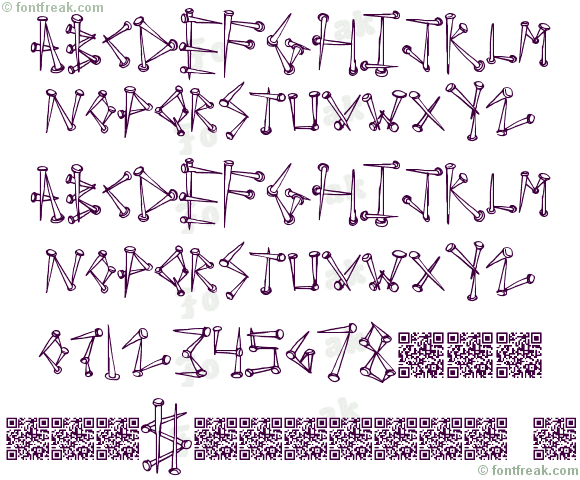
SuperTack
SuperTack by Xerographer Fonts is a distinctive display font that embodies a playful and creative spirit. Released in 2013 as freeware, it showcases a unique design that features a series of nail-like elements, giving it an industrial and artistic flair. The font's letterforms exhibit a variable stroke weight, combining thick and thin lines that create visual interest and a sense of movement. The spacing is intentionally irregular, enhancing its quirky character and making it an eye-catching choice for a range of applications.
SuperTack excels in various creative contexts, making it ideal for use in wedding invitations that seek a modern yet whimsical touch. Its unique style also lends itself well to movie posters, where it can capture the attention of potential viewers with its unconventional design. Additionally, restaurant menus can benefit from SuperTack's charm, enticing diners with an inviting and contemporary aesthetic. Content creators looking to make their social media graphics pop will find this font an engaging choice, perfect for headlines or promotional materials. Graphic designers and small business owners will appreciate the versatility and originality that SuperTack brings to their projects.
What truly sets SuperTack apart is its ability to infuse a sense of fun and creativity into any design. Unlike traditional fonts, its unconventional structure and playful elements encourage a fresh perspective, making it a compelling choice for modern projects. Whether you're crafting a unique invitation or designing promotional content, SuperTack font free download offers a distinctive option that can elevate your work while showcasing your personal style. Embrace the creativity of SuperTack and make a memorable statement in your designs.